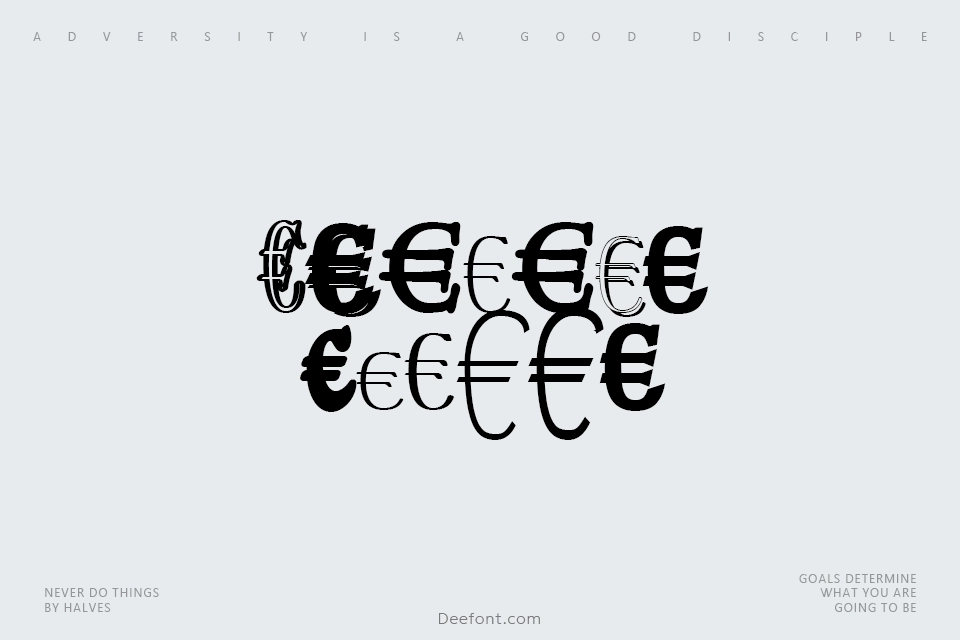
Ubiqita Europa Font
Ubiqita Europa is a playful and versatile dingbats font designed by Paul Lloyd, featuring 107 unique glyphs perfect for creative designs. This free font combines whimsical decorative elements with practical usability, making it ideal for various design projects including invitations, posters, and digital media. The font’s extensive character set and playful nature make it a favorite choice among designers seeking distinctive typographic solutions for both personal and commercial applications.